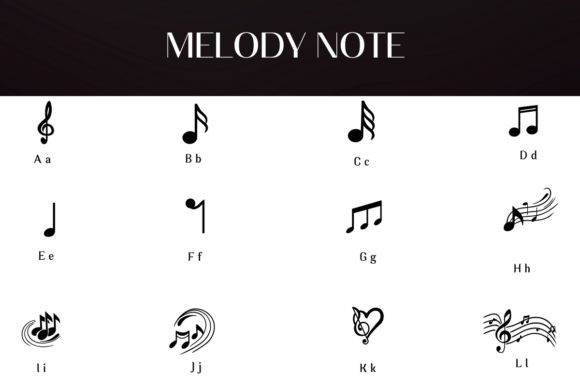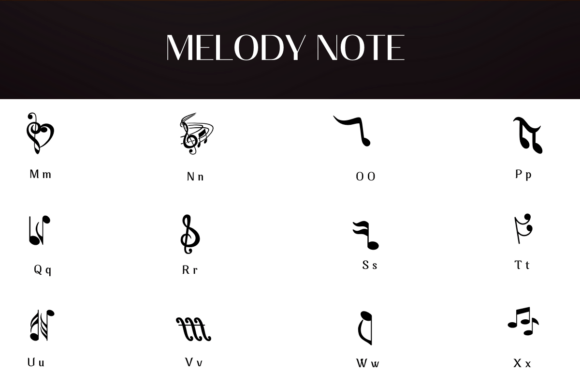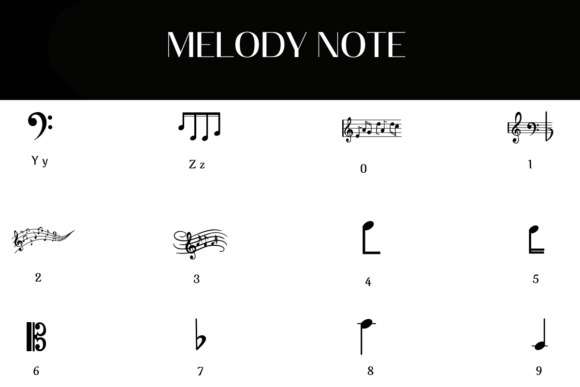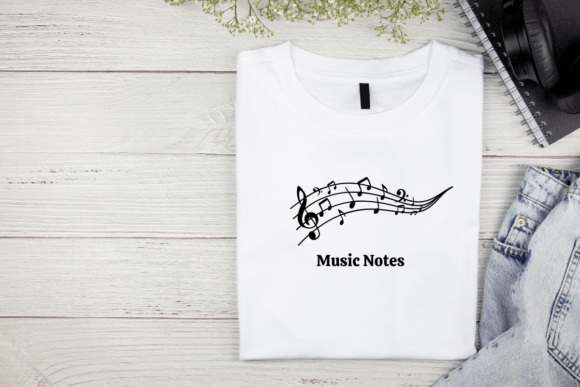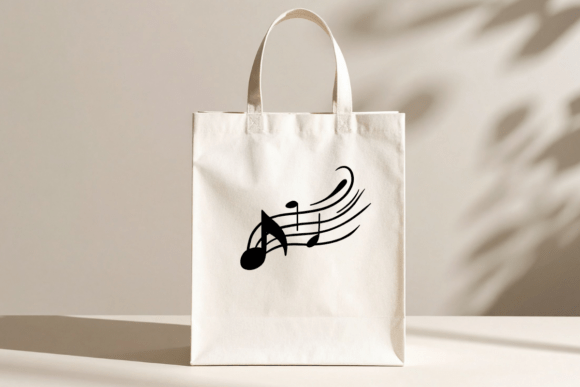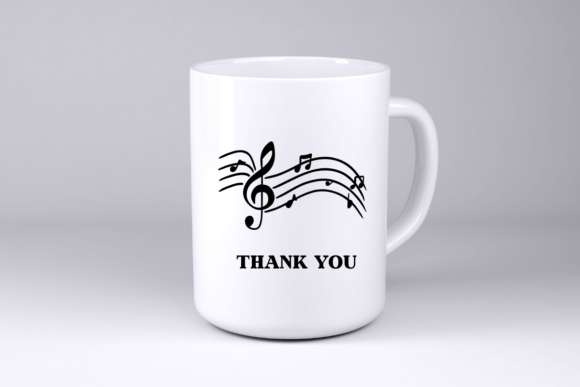
Introduction to Melody Notes Font Font
Fonts play a crucial role in design, and the Melody Notes Font font is a typeface that brings both character and versatility to any project. Whether you’re working on a branding project, a website, or a print design, the Melody Notes Font font offers a unique style that can elevate your work.
Melody Notes is a cool dingbats font.
Add it to your creative projects and enjoy the results .
Key Features of Melody Notes Font Font
Why Choose Melody Notes Font Font?
The Melody Notes Font font is more than just a typeface – it’s a design tool that helps you communicate your message with style and clarity. Its unique character set and versatile design make it suitable for a wide range of applications, from elegant invitations to bold headlines.
With its carefully crafted letterforms and balanced proportions, the Melody Notes Font font ensures readability and visual appeal across all mediums.
What makes Melody Notes Font font special?
The Melody Notes Font font stands out with its unique design, exceptional readability, and versatility across various design applications.